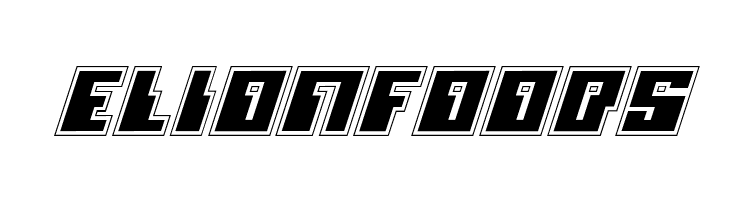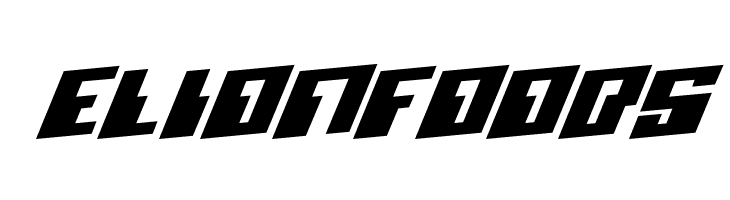
niceday Font
- Font: niceday
A bold, geometric italic font with a futuristic and dynamic style.
A bold, angular, and futuristic font with a dynamic slant.
A bold, 3D geometric font with a futuristic and structured appearance.
A bold, 3D italic font with a geometric and futuristic style.
A bold, geometric font with a modern, digital aesthetic.
A bold, expanded, and italicized font with a futuristic and angular design.
A futuristic, bold, and expanded italic font with sharp geometric angles.
A futuristic, 3D italic font with bold outlines and geometric shapes.